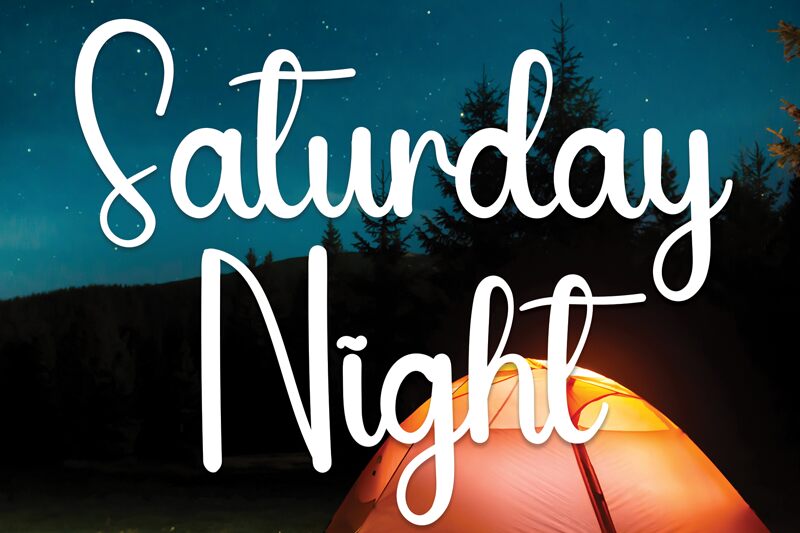
Saturday Night
Saturday Night is a captivating handwritten font designed by Andi Moz. Its bold, expressive strokes and fluid, playful lines evoke a sense of casual sophistication and youthful energy. The font's dynamic characters seem to dance across the page, lending an effortless, spontaneous feel to any design.
With its distinctive personality, Saturday Night shines in a variety of applications, from elegant wedding invitations to vibrant event posters, effortlessly infusing a touch of stylish flair.
Its versatility makes it a compelling choice for designers seeking to add a touch of casual elegance and unrestrained creativity to their projects.